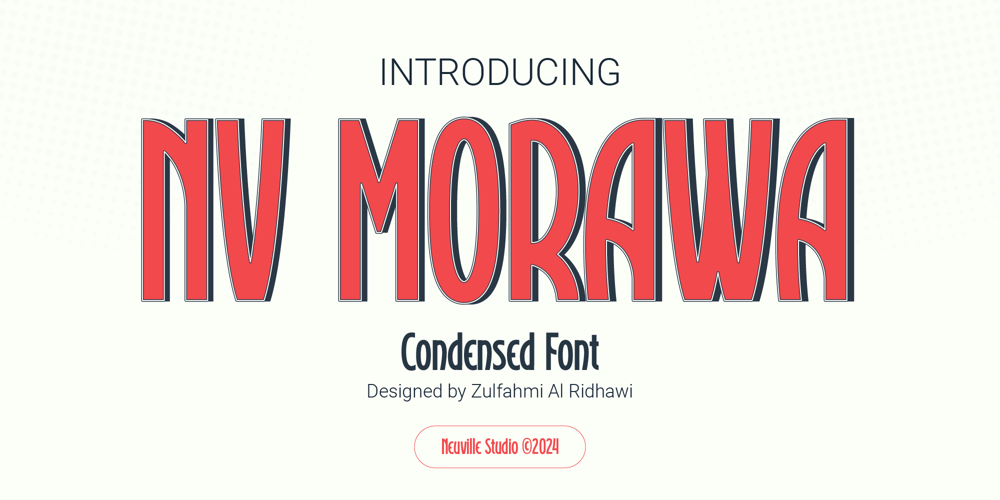
NV Morawa
NV Morawa font
NV Morawa Font Family was designed by published by Zulfahmi Al Ridhawi. NV Morawa contains 1 styles and family package options. NV Morawa™ is a condensed font inspired by the dynamic shapes world. Simple and readable with a touch of originality, more elegant and contrasting. NV Morawa™ is compatible for multilanguage languages and contains over 339 glyphs including several alternatives.